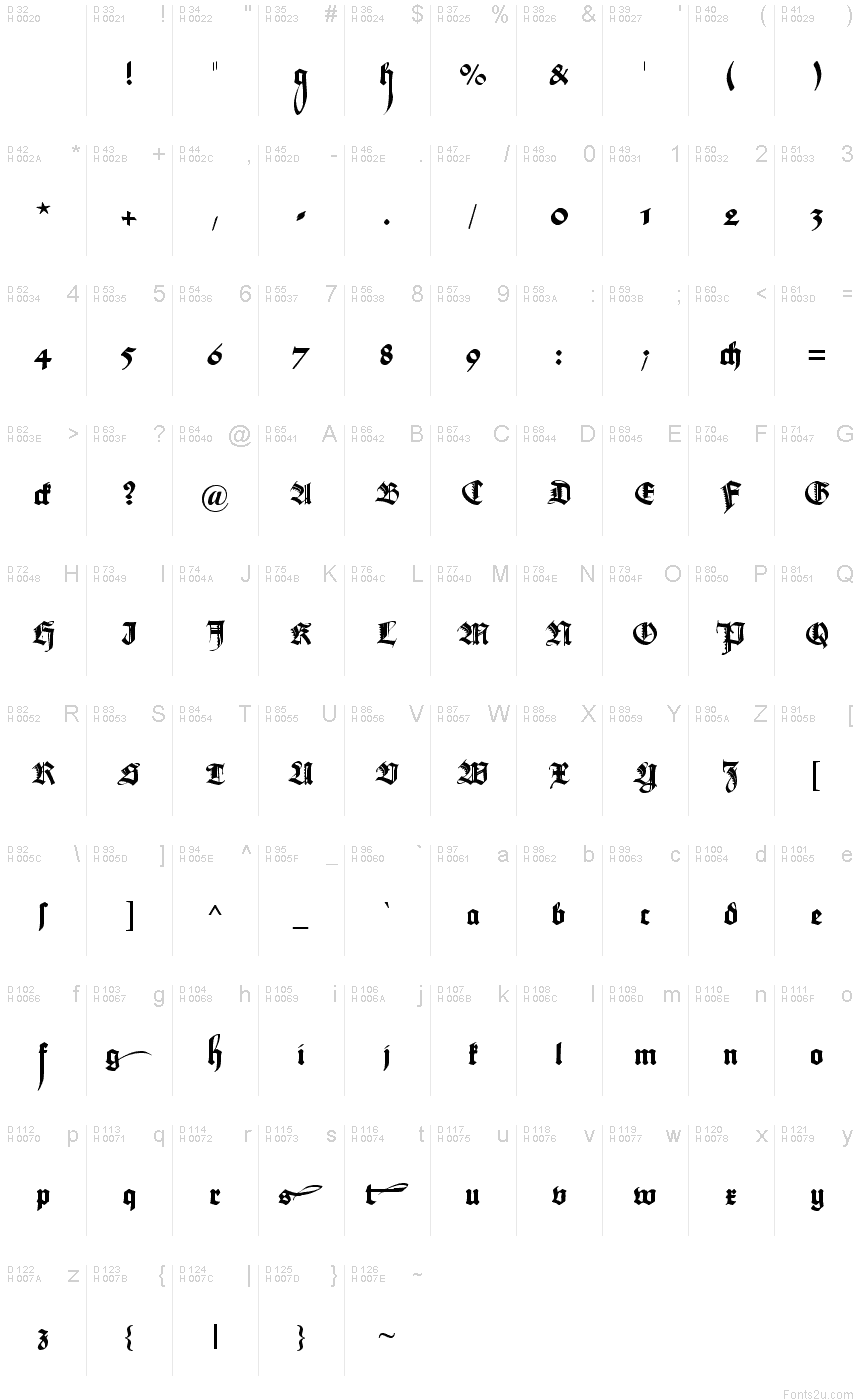
Maximilian Zier
Maximilian Zier font by Typographer Mediengestaltung is a medieval Gothic free font with sharp, broken strokes and pointed, angular forms. The letters carry the look of old title lettering, with dense vertical rhythm, hard edges, and narrow inner spaces that give the whole face a formal, early-print feel.
Maximilian Zier suits book covers, heritage posters, certificates, brewery labels, and event logos that need a strong historical reference. Its ornate blackletter structure gives invitations and signage an unmistakable period accent without needing extra decoration.